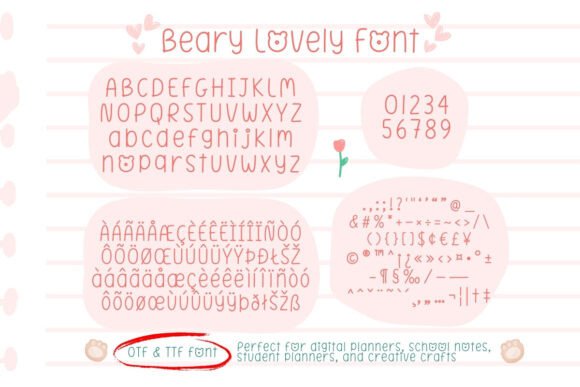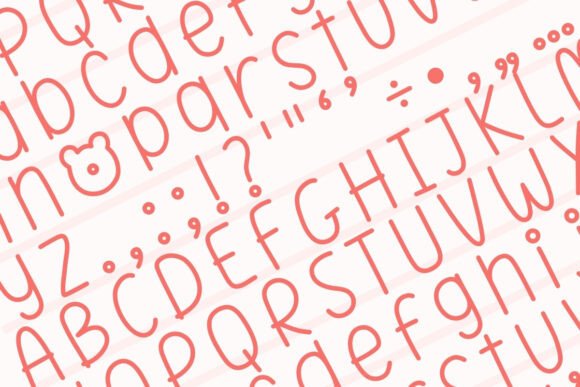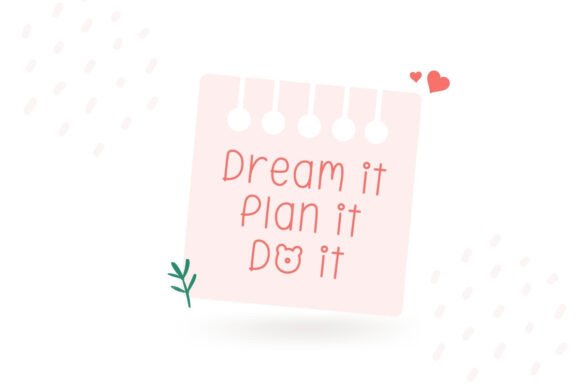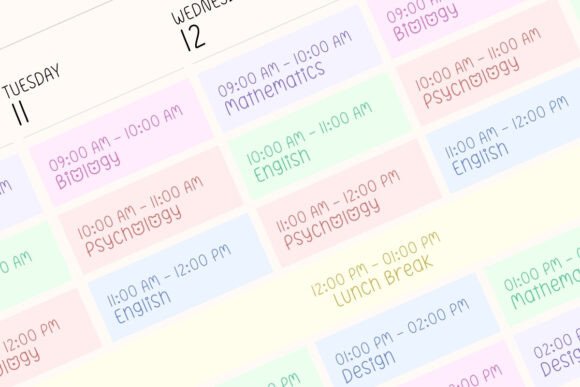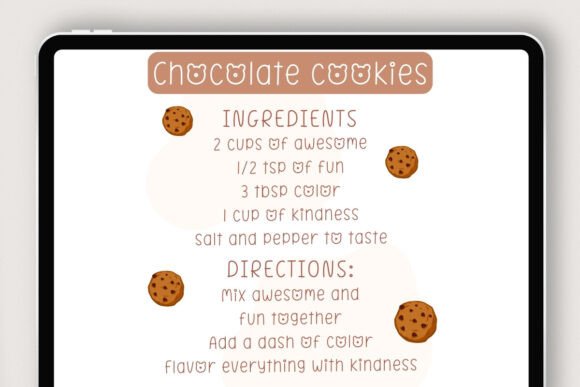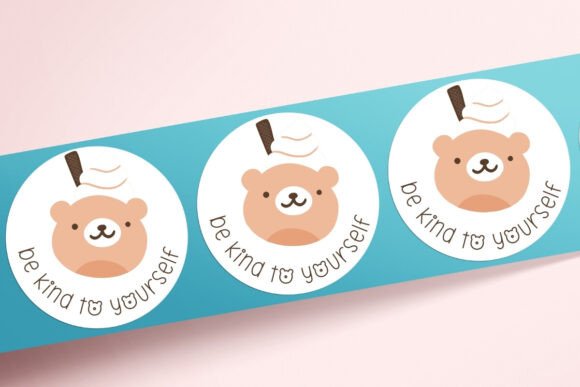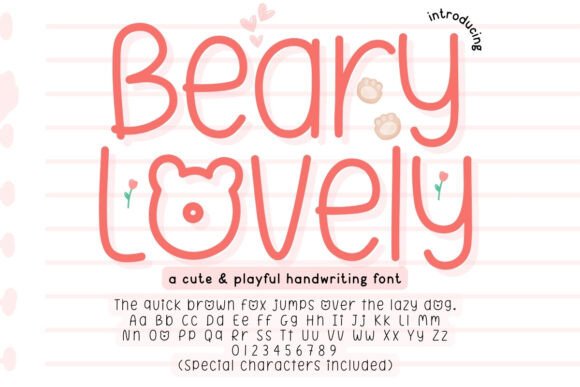
Beary Lovely Font: The Ultimate Cute and Playful Handwriting Font for Designers and Crafters
Are you tired of using the same old fonts for your notes, planners, and digital projects? Look no further! Introducing Beary Lovely, a delightful and playful handwriting font that adds a touch of whimsy and charm to any design. Inspired by adorable bears, this font is perfect for designers, crafters, and students looking to add some personality to their work.
What Makes Beary Lovely So Special?
Beary Lovely is more than just a font – it’s an experience. With its playful handwritten style and bear-themed details, this font is sure to bring a smile to your face. The whimsical letterforms are carefully crafted to resemble handwriting, making it perfect for note-taking, journaling, and crafting. The bear-themed accents add a touch of cuteness, making it ideal for designers and crafters who love kawaii designs.
Perfect for Various Applications
Beary Lovely is a versatile font that can be used for a variety of applications, including:
- School notes and student planners
- Digital projects, such as GoodNotes, Procreate, and Canva
- Journaling and scrapbooking
- iPad and digital art
Whether you’re a student, teacher, or crafter, Beary Lovely is the perfect font to add some personality to your work.
Features of Beary Lovely Font
Beary Lovely font comes with a range of features that make it a must-have for designers and crafters:
- Playful handwritten style with bear-themed details
- Includes uppercase, lowercase, numbers, and special characters
- Great for GoodNotes, Procreate, Canva, and more
Why Choose Beary Lovely Font?
There are many fonts available online, but Beary Lovely stands out from the rest. Here are just a few reasons why:
- Unique and playful design: Beary Lovely is a one-of-a-kind font that adds a touch of whimsy to any design.
- High-quality and clear: The font is carefully crafted to ensure that it’s clear and easy to read, even at small sizes.
- Versatile: Beary Lovely can be used for a variety of applications, from digital projects to crafting and DIY.
Need some inspiration for using Beary Lovely font? Here are a few ideas to get you started:
- Create a cute and playful planner or journal with Beary Lovely font.
- Add a touch of whimsy to your digital art with Beary Lovely.
- Use Beary Lovely font for your school notes or student planners.
- Create adorable crafts and DIY projects with Beary Lovely font.
With Beary Lovely font, the possibilities are endless! Don’t be afraid to get creative and experiment with different designs and projects.
In conclusion, Beary Lovely font is a must-have for designers, crafters, and students looking to add some personality to their work. With its playful handwritten style and bear-themed details, this font is sure to bring a touch of whimsy and charm to any design. Whether you’re using it for school notes, digital projects, or crafting, Beary Lovely is the perfect font to make your work stand out.